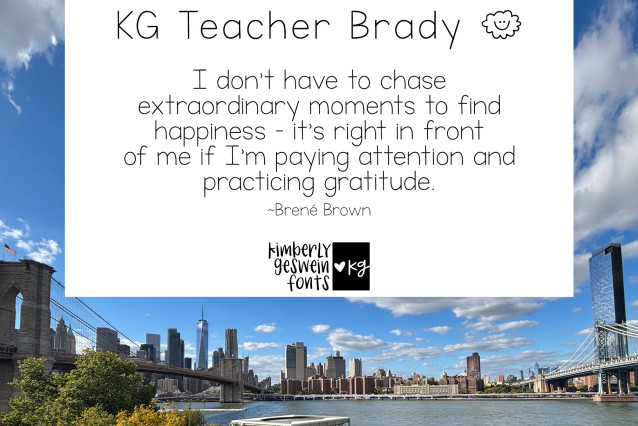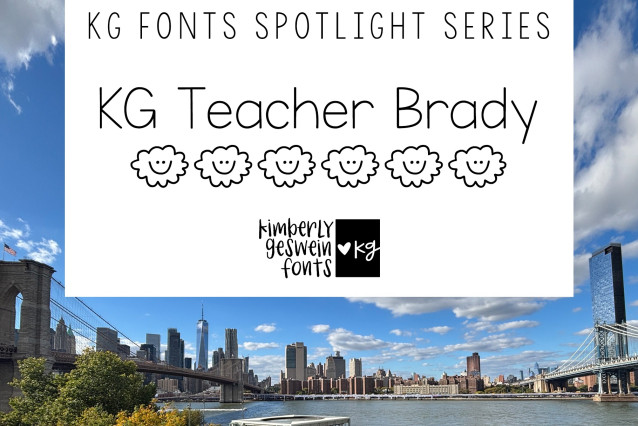
KG Teacher Brady Font
KG Teacher Brady Font is a simple and modern display font suitable for quotes, logos, headings, titles, and many more. Use it on any of your creative projects, and your designs will become outstanding!